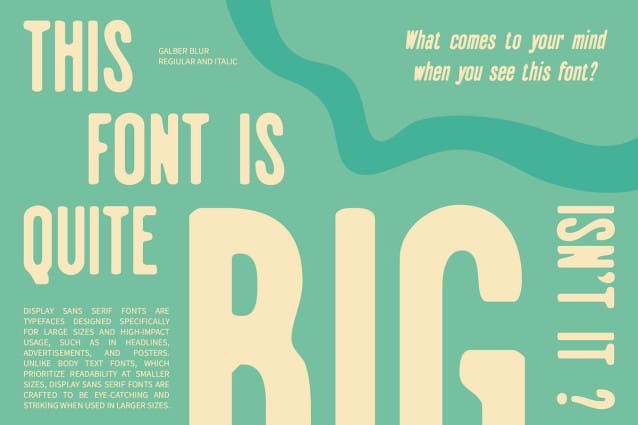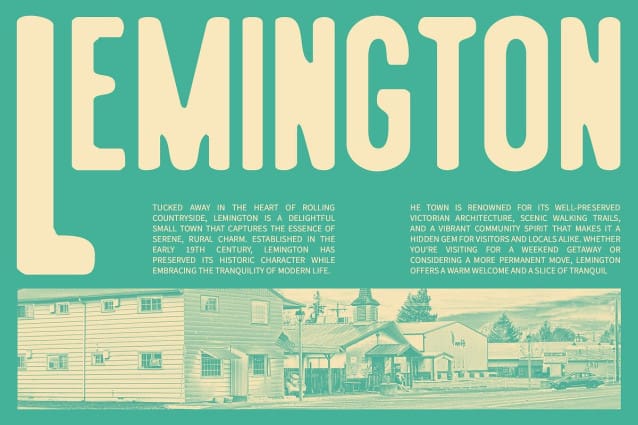
Galber Blur Font
Galber Blur Font is a contemporary sans-serif font that merges the efficiency of condensed letterforms with a distinctive blur effect. The condensed design maximizes space, making it an excellent choice for projects where text needs to be both impactful and space-conscious. The sleek, clean lines of the font are given an intriguing twist by the blur effect, which adds a soft, diffused quality that sets it apart from traditional sans-serif fonts.
Creating Depth and Softness The blur effect in Galber Blur introduces a subtle softness to the otherwise sharp and modern letterforms. This creates a unique visual dimension that adds depth and intrigue to the text, making it more than just a straightforward sans-serif font. The softened edges offer a contemporary and slightly abstract feel, perfect for designs that seek to break away from the norm while maintaining readability and clarity.
Perfect for Branding, Posters, and More Galber Blur is the ideal choice for design projects that require a modern and edgy aesthetic. Its combination of space-efficient condensed shapes and the artistic blur effect makes it perfect for branding, posters, promotional materials, and more. Whether you’re aiming to convey a contemporary, creative touch or add a subtle yet impactful element to your design, Galber Blur delivers with style and sophistication.